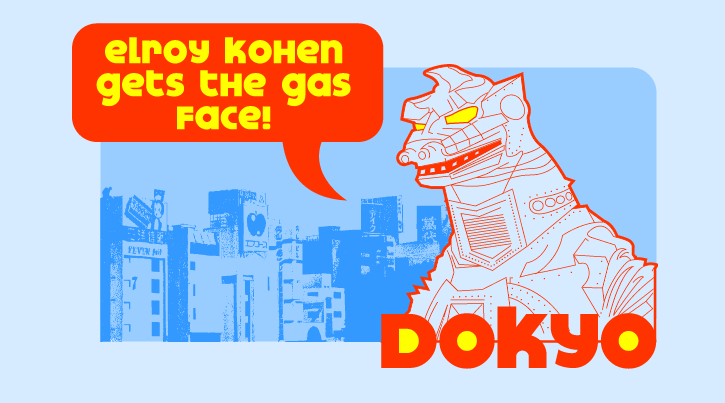
Dokyo
Sometimes when I make fonts, I do it for me. I needed a nice big fat mutha like Futura or Folio Extra Bold. And those are great fonts, but they get used almost as much as Brush Script these days. So, what do I do? I make a brand new one that is a little more 21st century and then I go and put it out there. This would be the place where I bust out my patented "BOO-YAAAA!" on those dudes, but that's just what they'd be expecting. So, just this one time only, I'm going to change it up with a "WHOOMP! There it is!" Thought you knew...